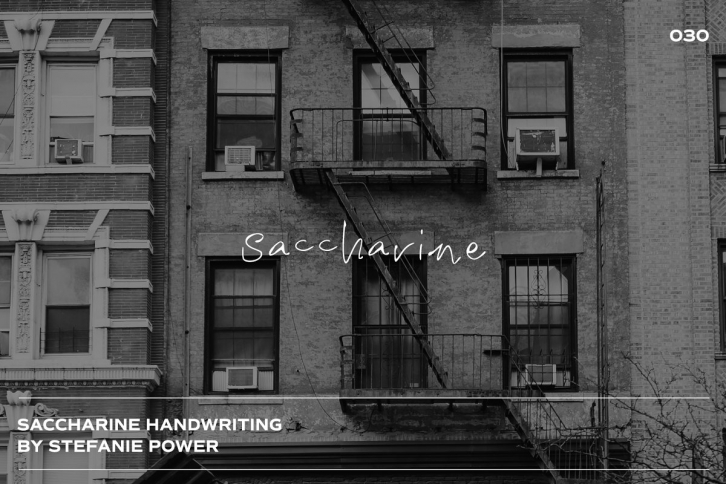
Introducing 'Saccharine' - a bold and scratchy font.
Saccharine • A handwritten script font containing upper & lowercase characters and a range of punctuation and numbers.